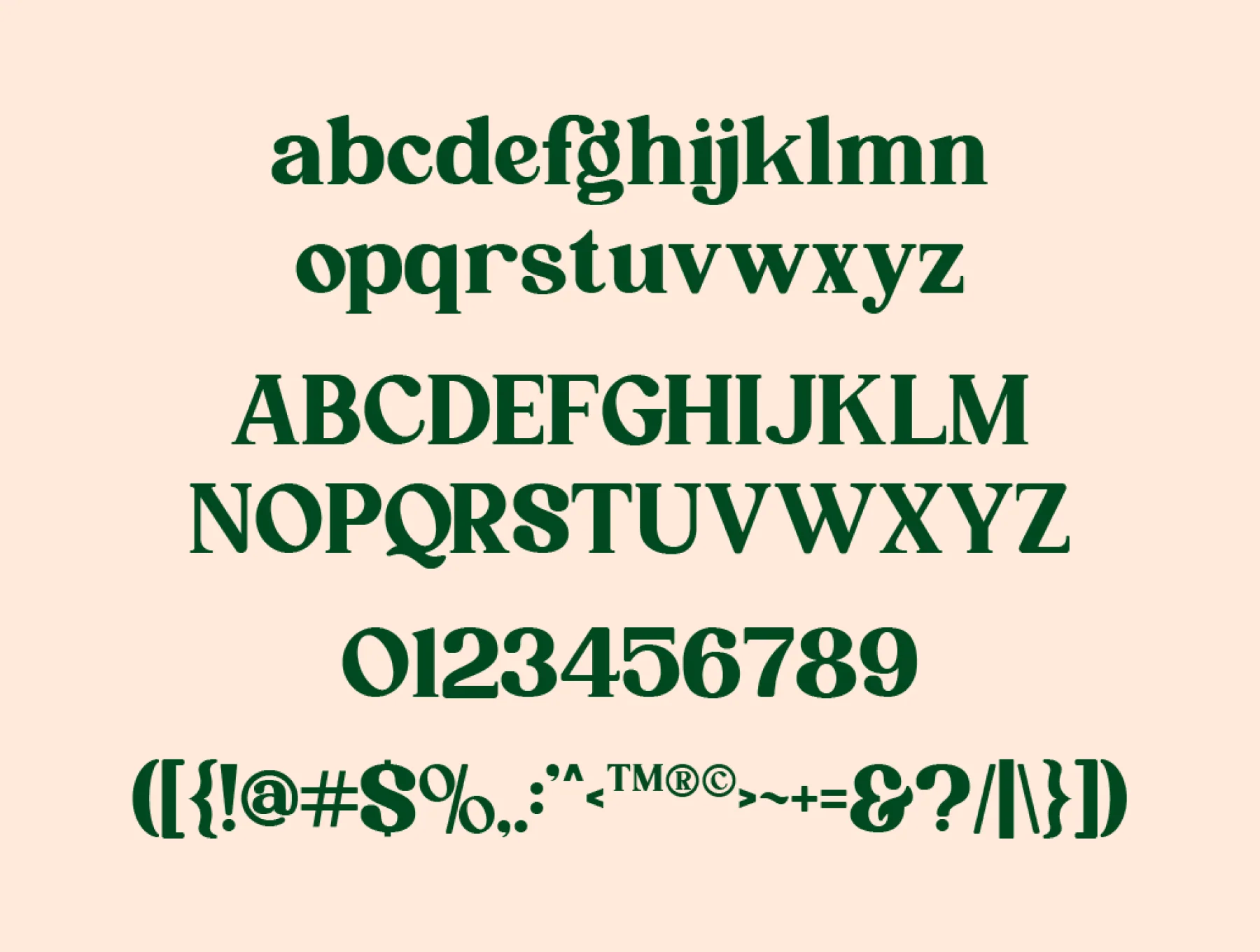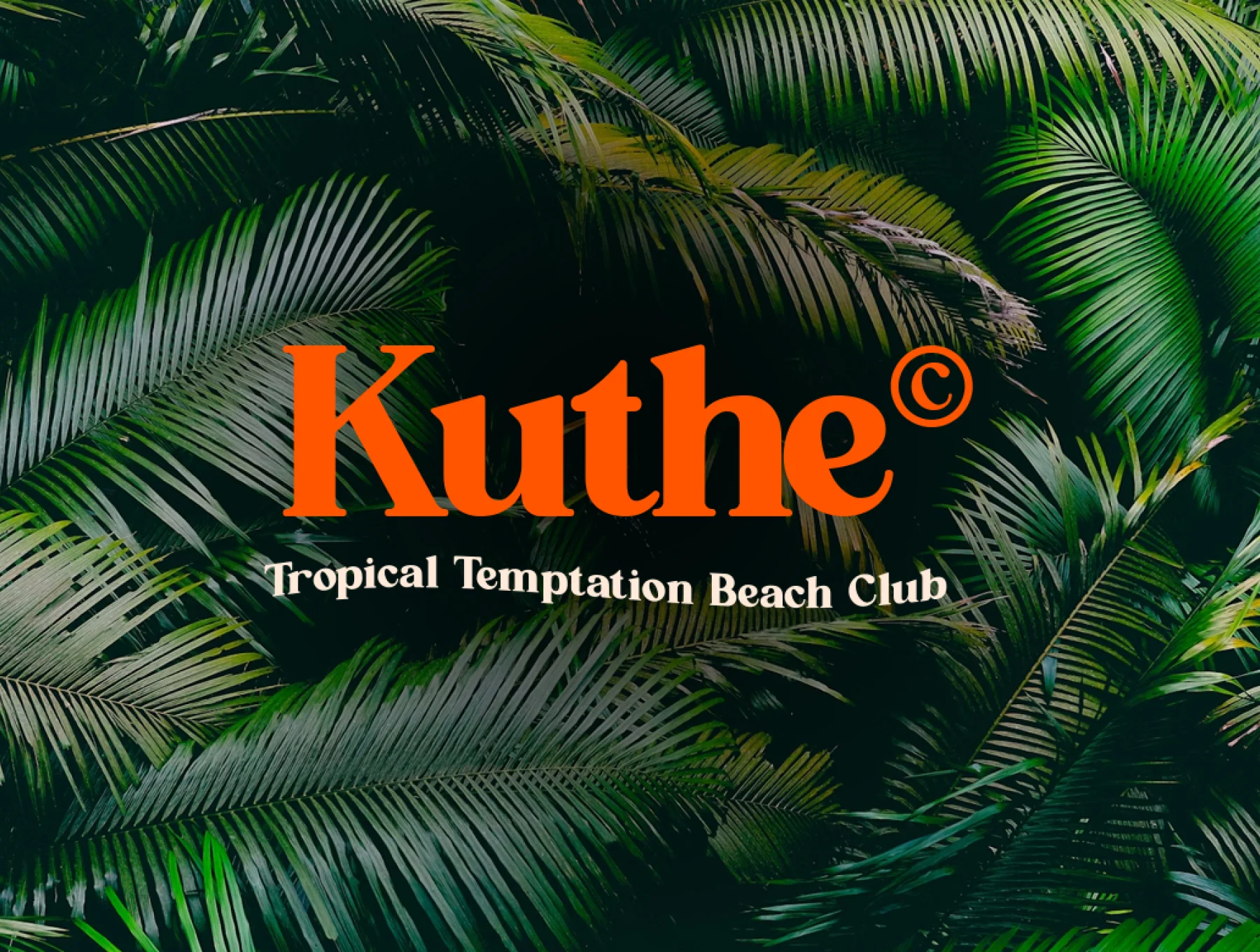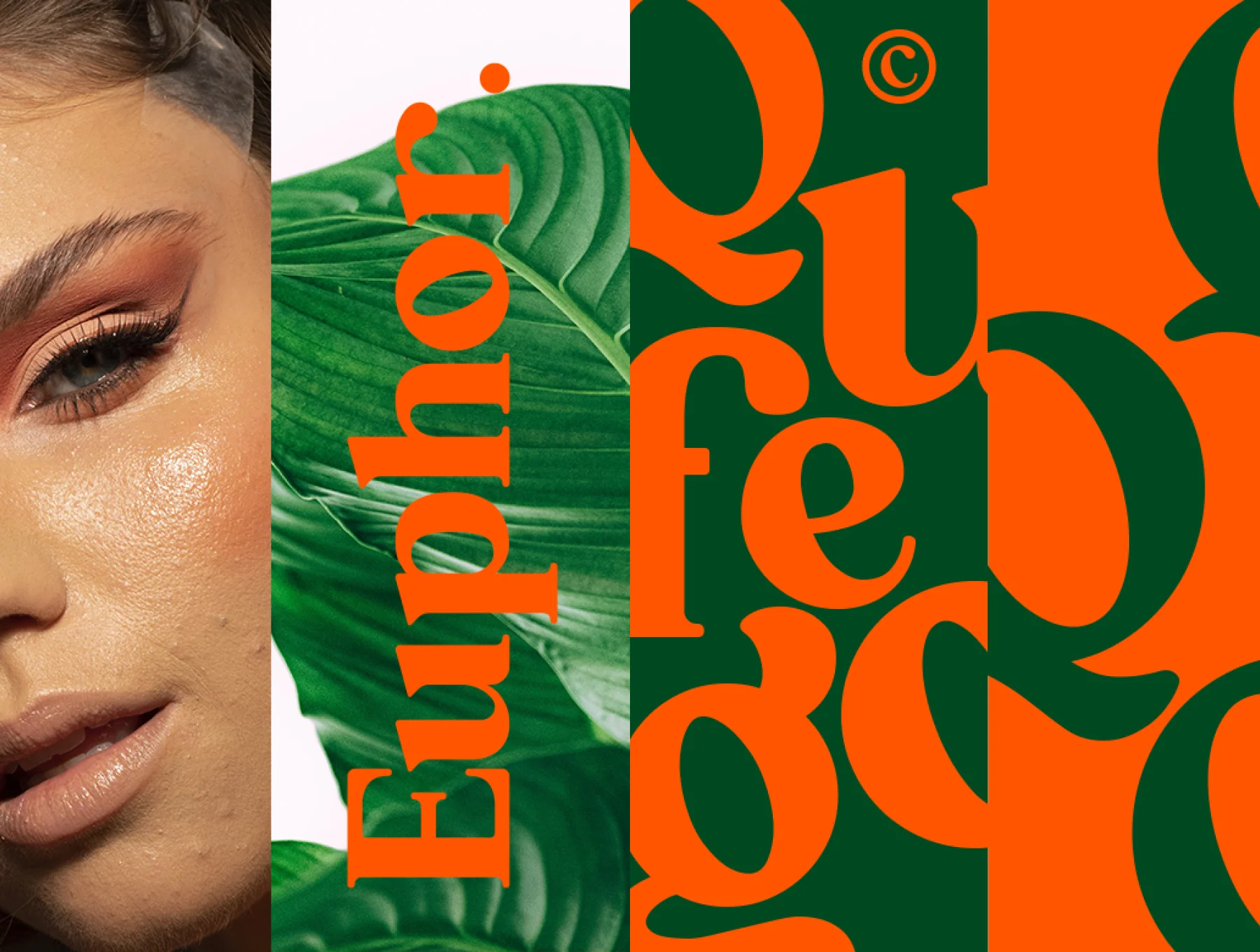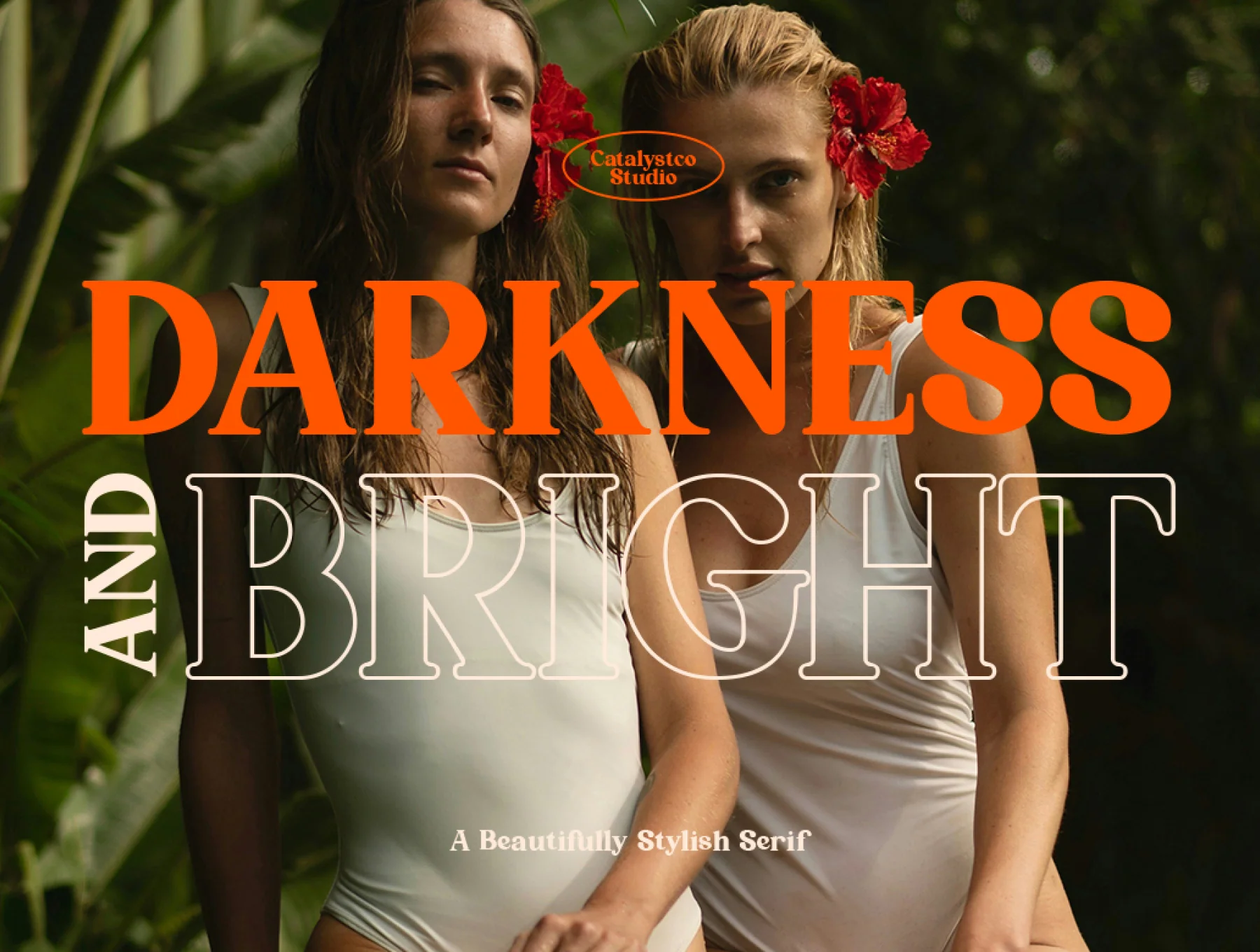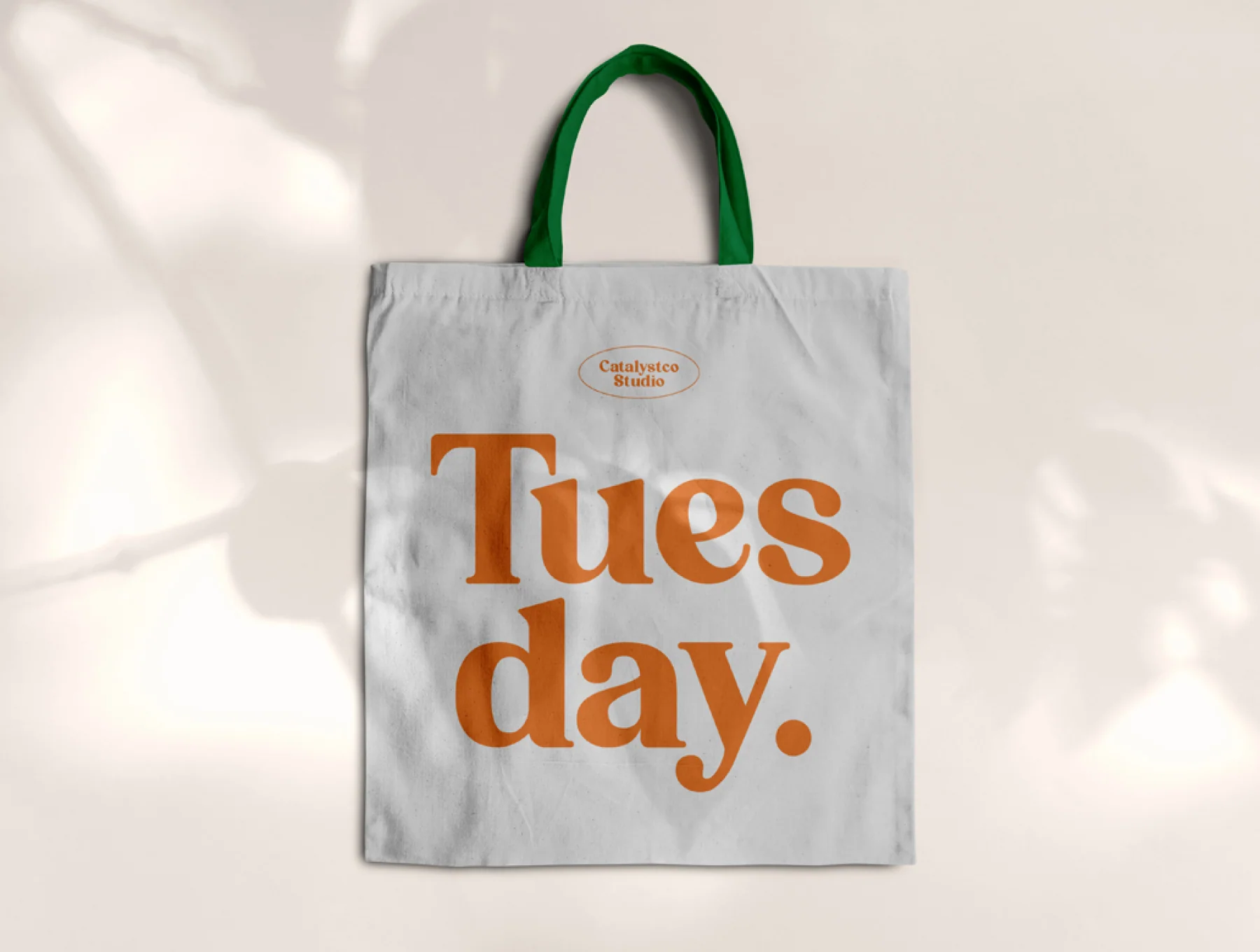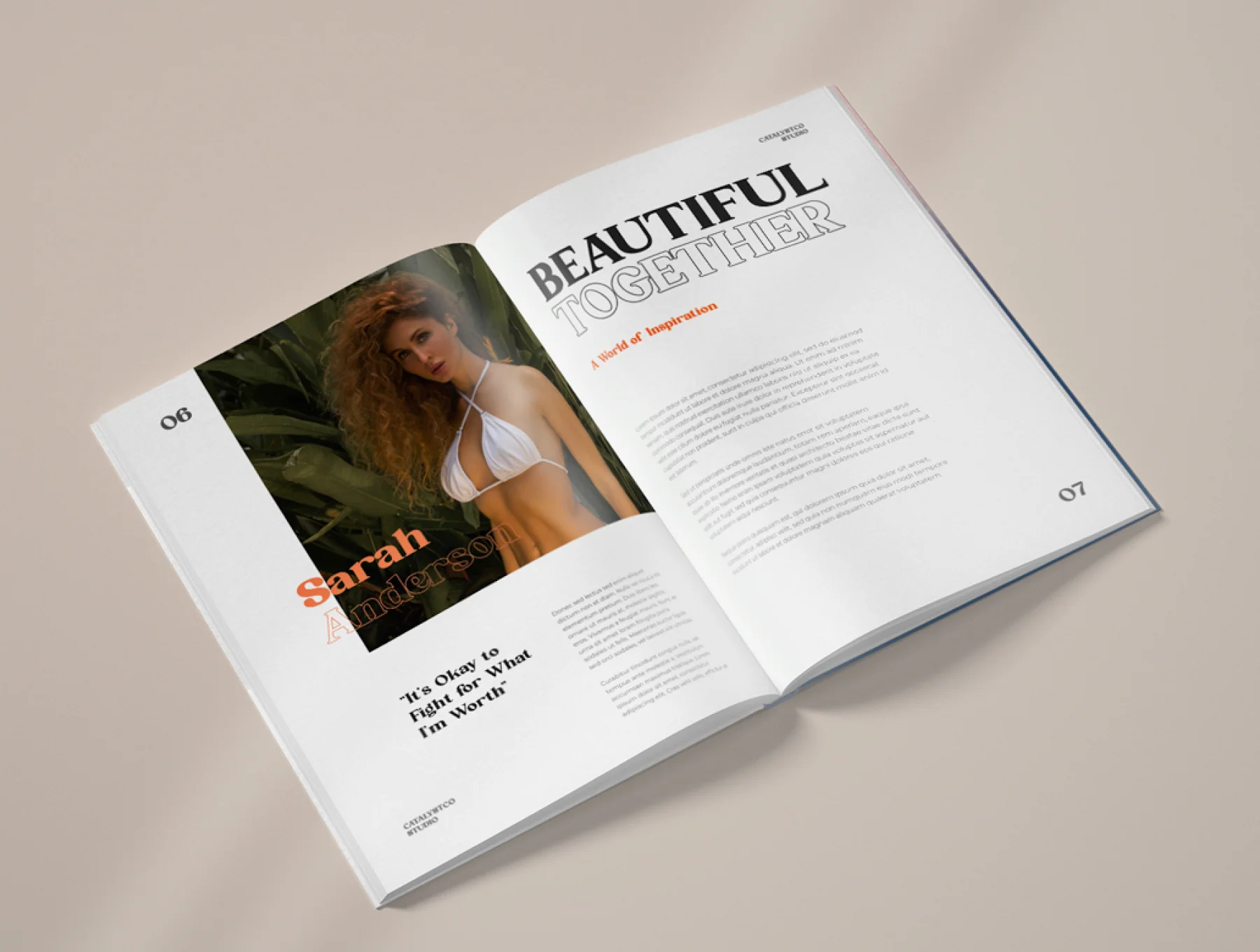
Qufego Stylish Serif Font
Serif Typeface
Capital and small letters
Ligature and alternate characters
Numbers and punctuation marks
Qufego is a stylish serif typeface ideal for quote designs, logotypes, magazine headers, and more. It includes TTF, OTF, and WOFF files, with uppercase and lowercase letters, numerals, and punctuation.